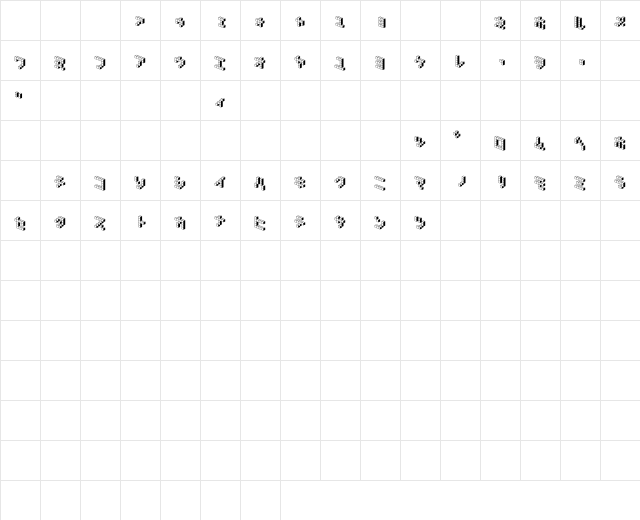
Complete DemonCubicBlock NKP Shade Regular glyph index. Displaying only characters natively supported by DemonCubicBlock NKP Shade Regular font.
DemonCubicBlock NKP Shade is a composed and adaptable typeface that performs quietly and consistently across a wide range of design contexts.